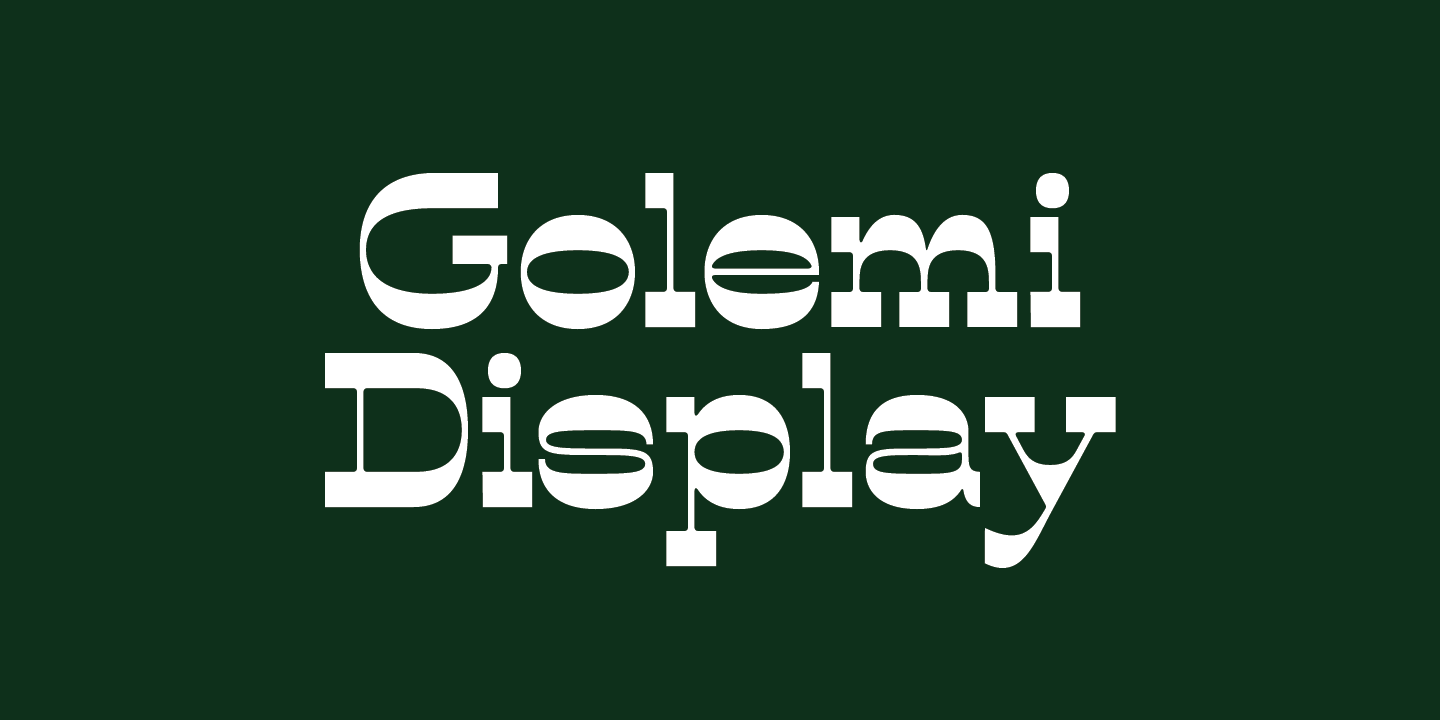
Golemi Display Font is perfect for various design applications including fantasy game logos, mystical movie titles, ancient-themed book covers, magical website headers, medieval restaurant branding, mysterious poster designs, gothic architecture presentations, enchanted event invitations, legendary brand identities, and powerful display typography.
What makes Golemi Display Font so exciting is its mythical and powerful character design that evokes ancient legends and mystical strength through typography. The font features bold, stone-carved letterforms with dramatic weight and mysterious details that create an atmosphere of ancient wisdom and supernatural power. Its legendary appearance and commanding presence make it ideal for projects requiring a mystical, otherworldly aesthetic that captivates audiences and creates unforgettable magical experiences.
Golemi Display Font comes in multiple font families including Regular, Bold, Light, Condensed, and Outline variations, providing designers with comprehensive typographic flexibility for diverse fantasy projects and mystical branding applications.
This extraordinary typeface stands out in the competitive font market due to its exceptional mythical appeal and dramatic impact. Whether you're creating fantasy gaming interfaces, supernatural movie posters, or ancient-themed brand identities, Golemi Display Font Free Download delivers the perfect balance of mystery and readability. The font's masterfully crafted letterforms ensure excellent performance across both digital and print media, making it an indispensable tool for fantasy designers. Its comprehensive character set supports multiple languages while maintaining consistent legendary quality throughout different design contexts and mystical creative applications.